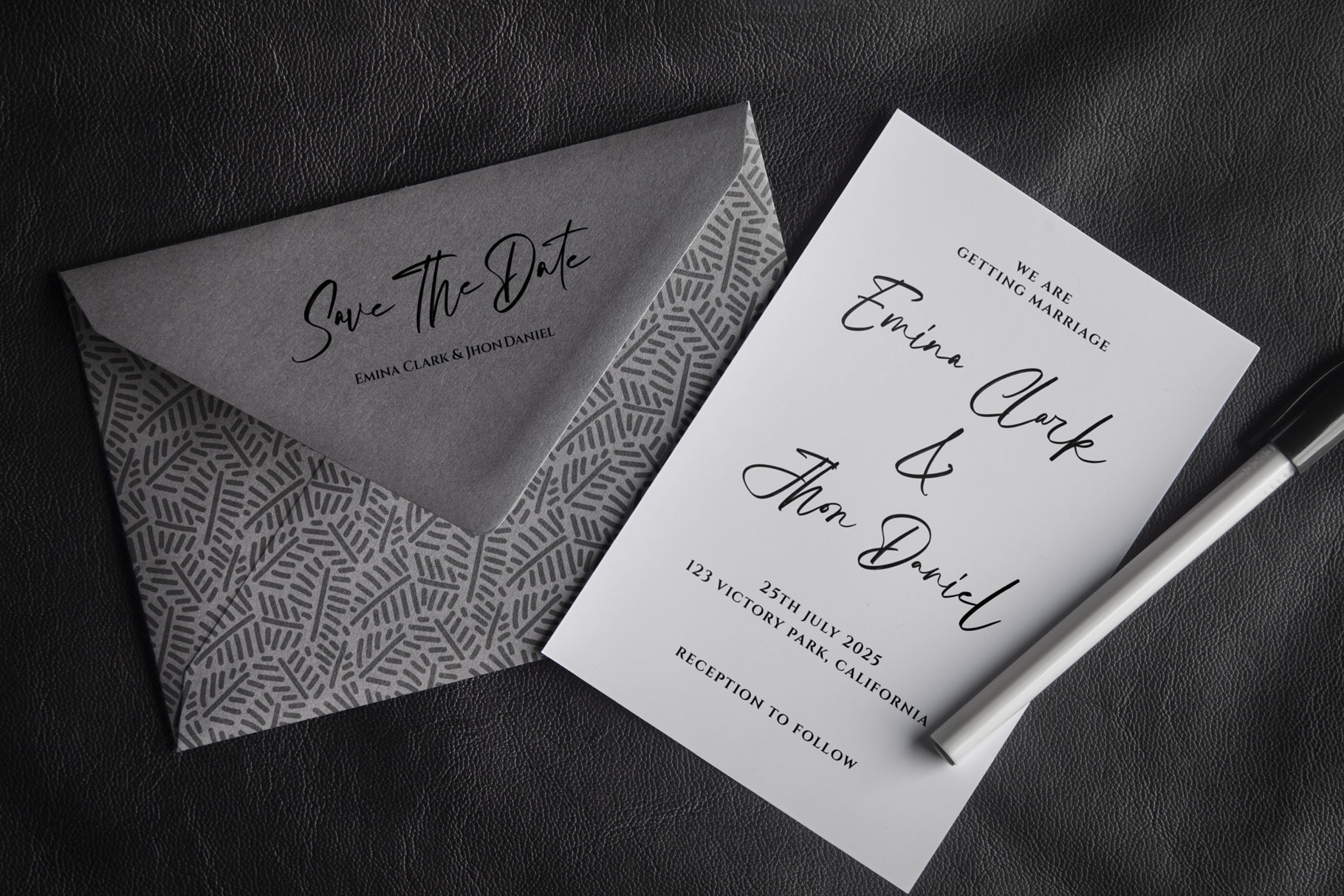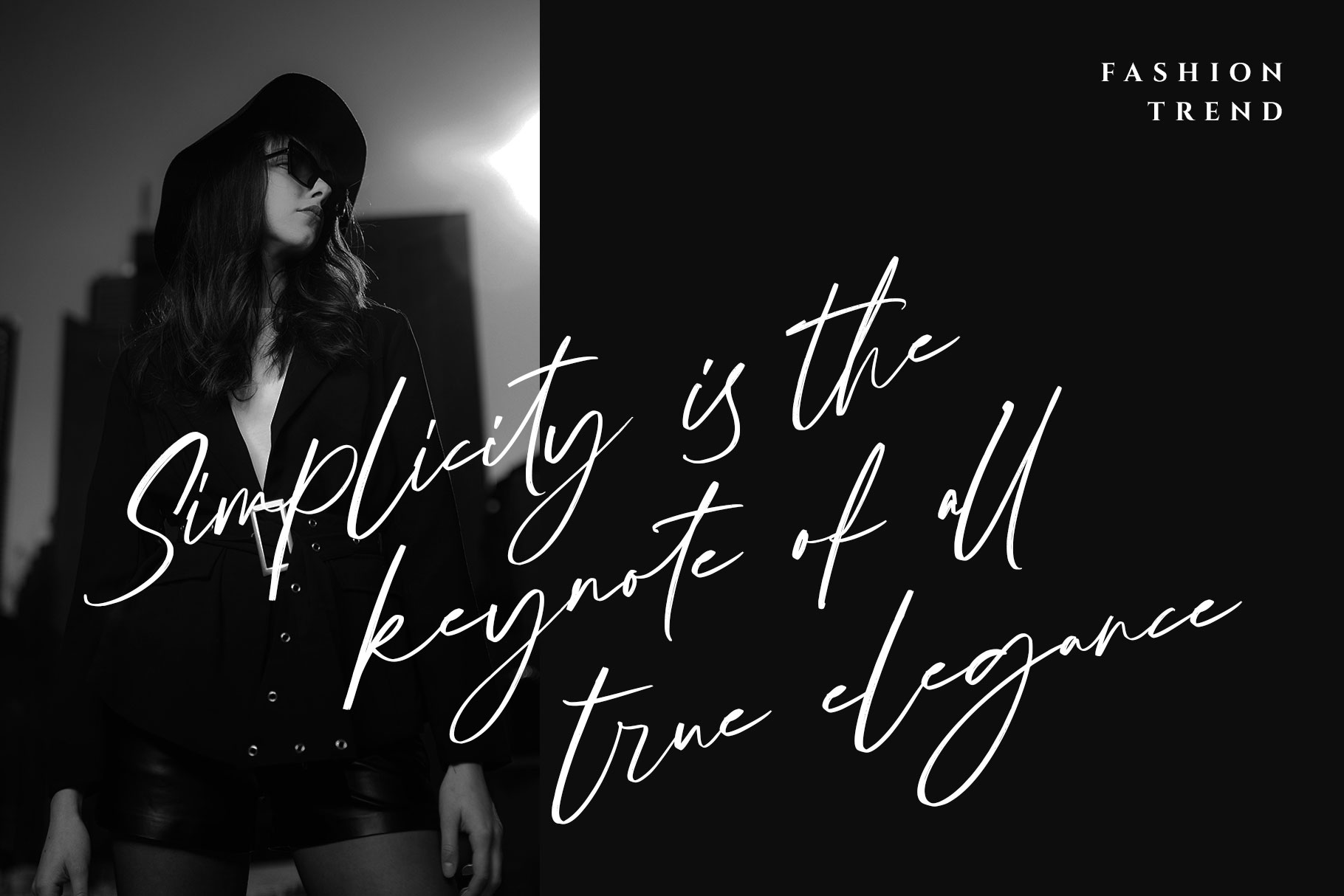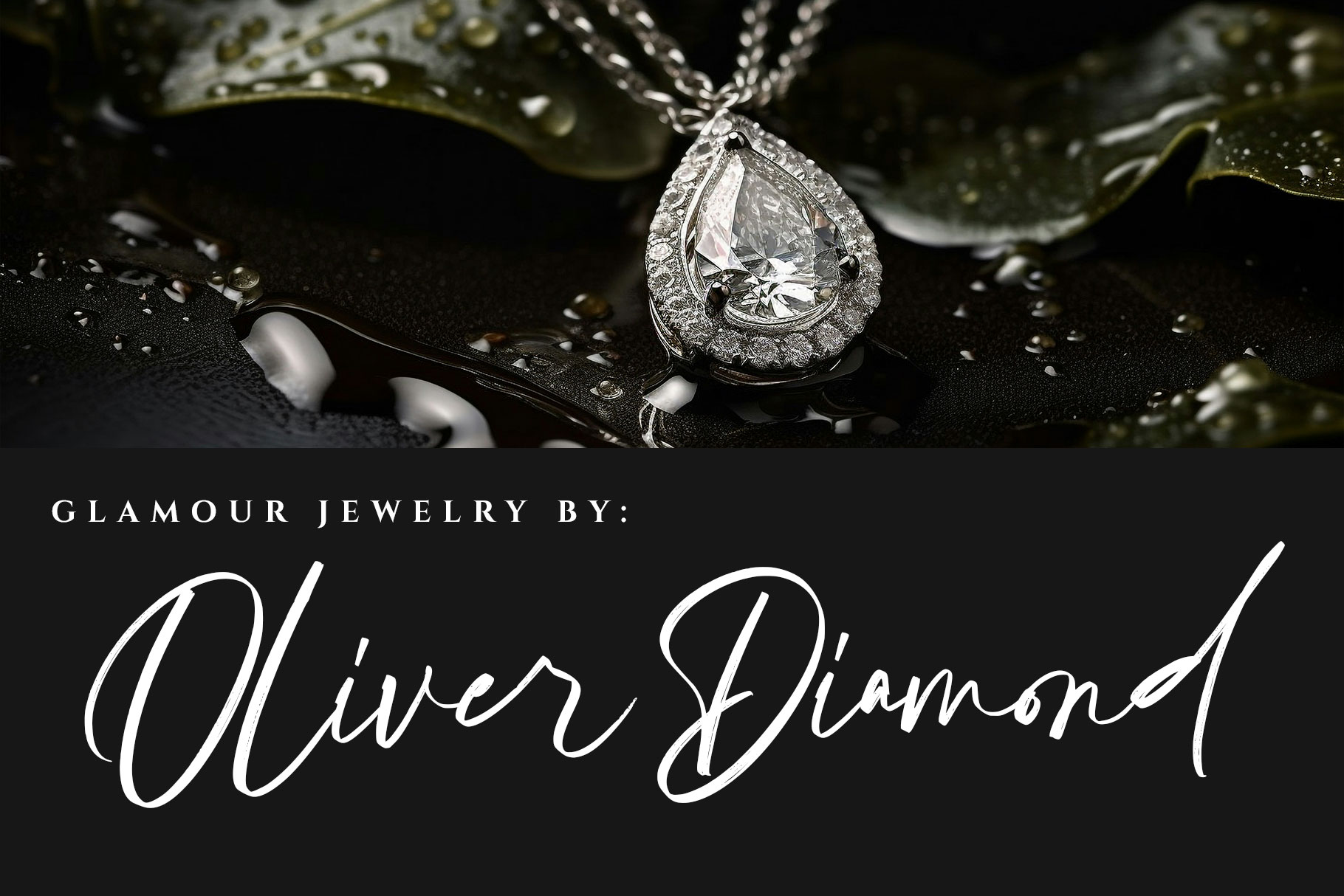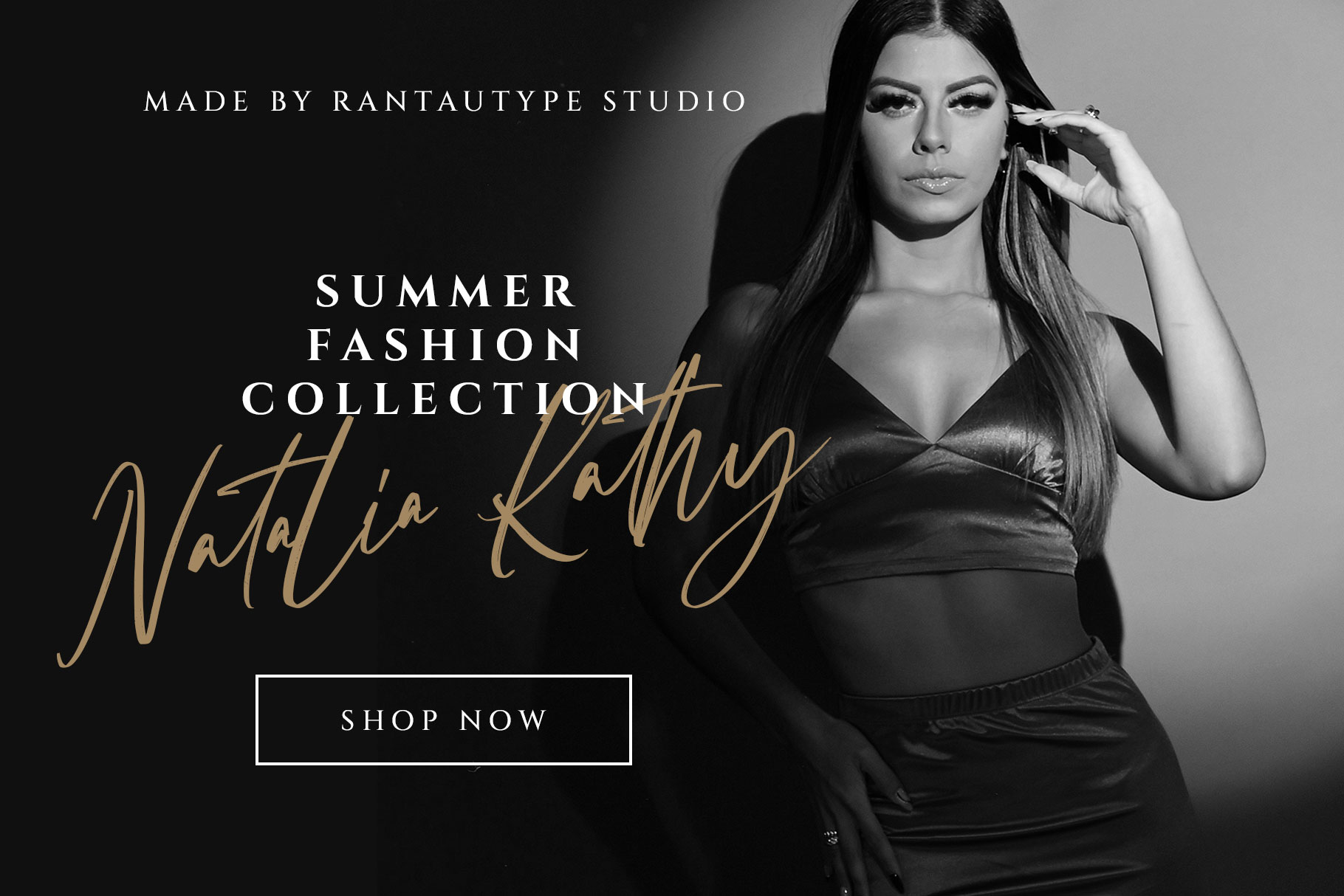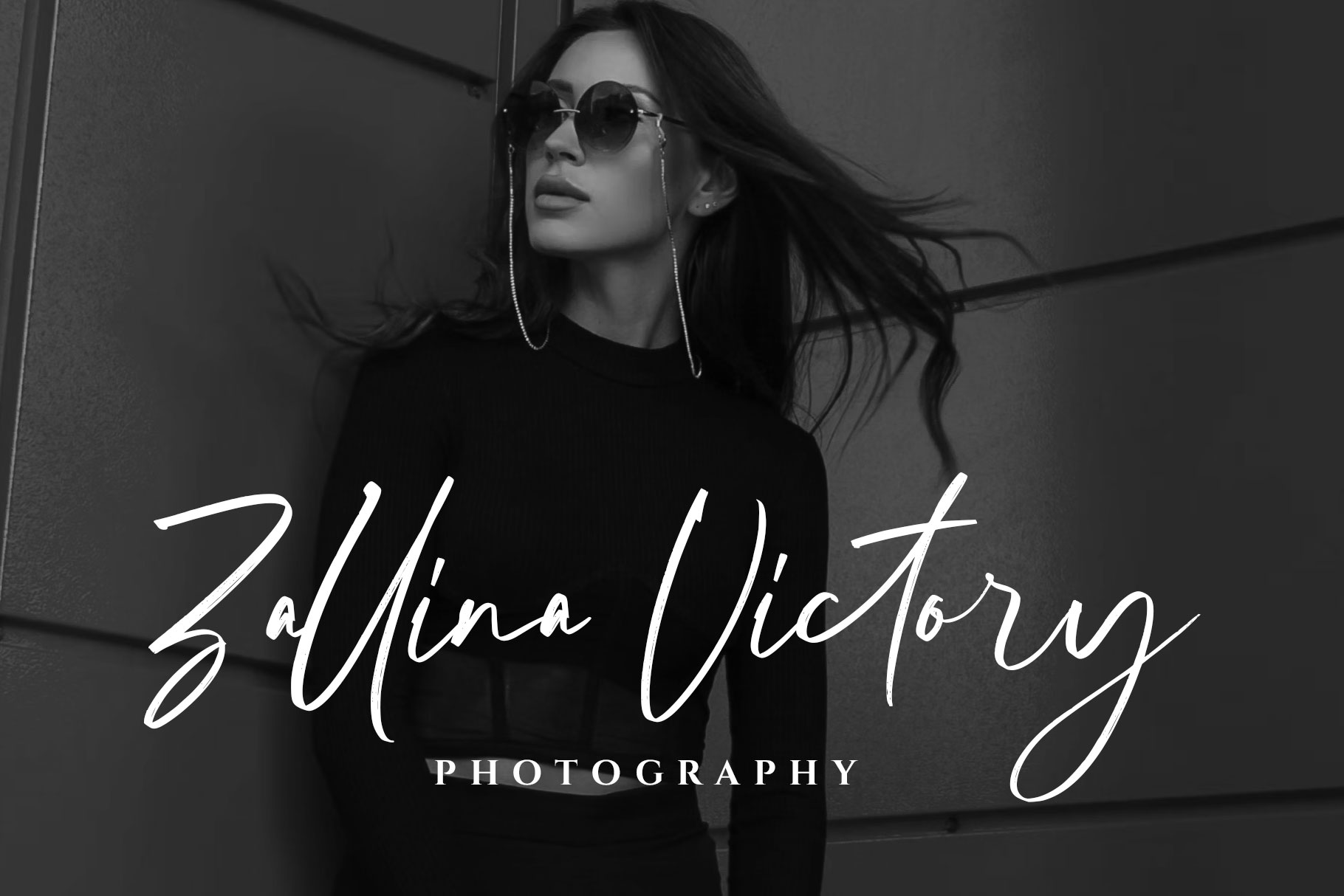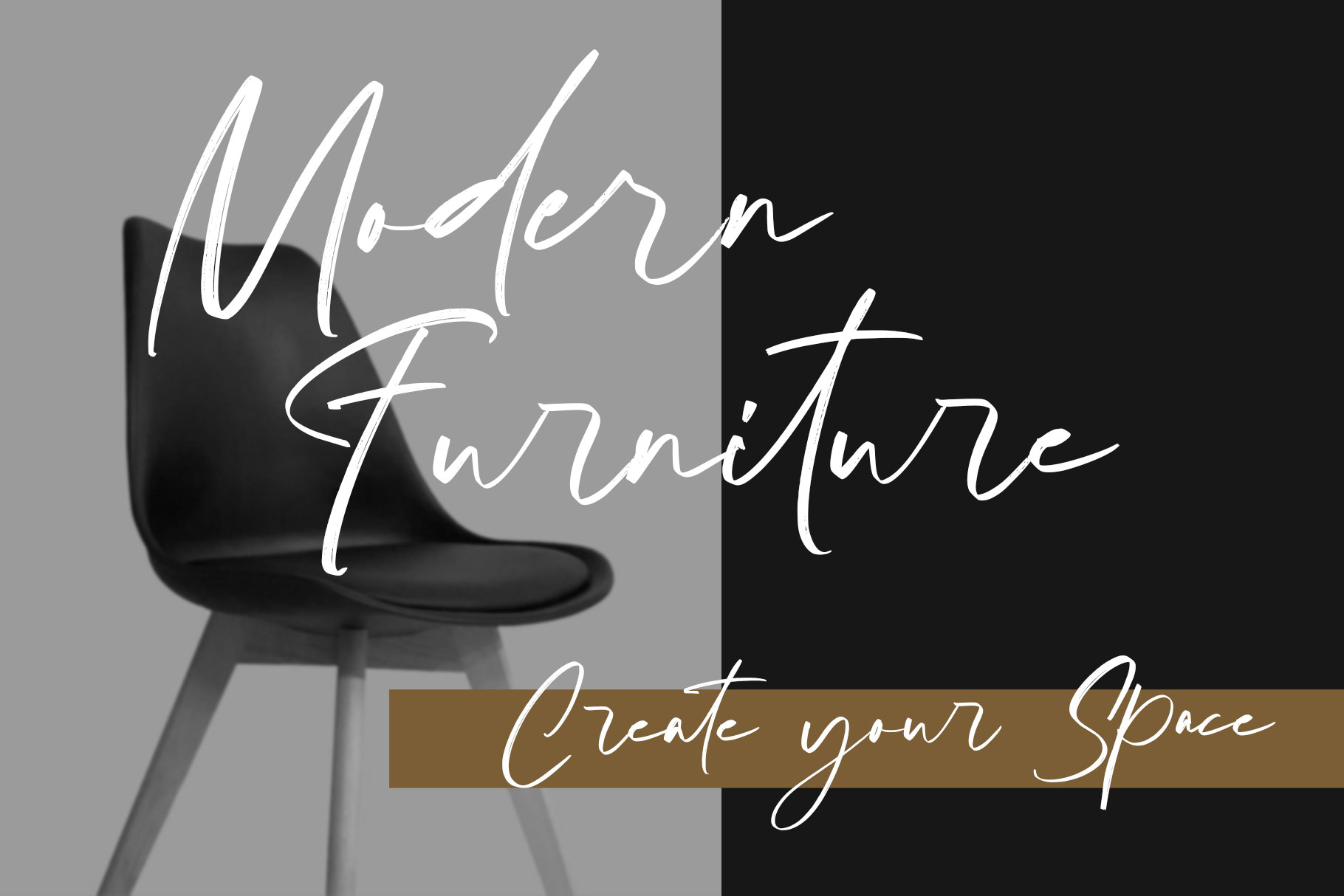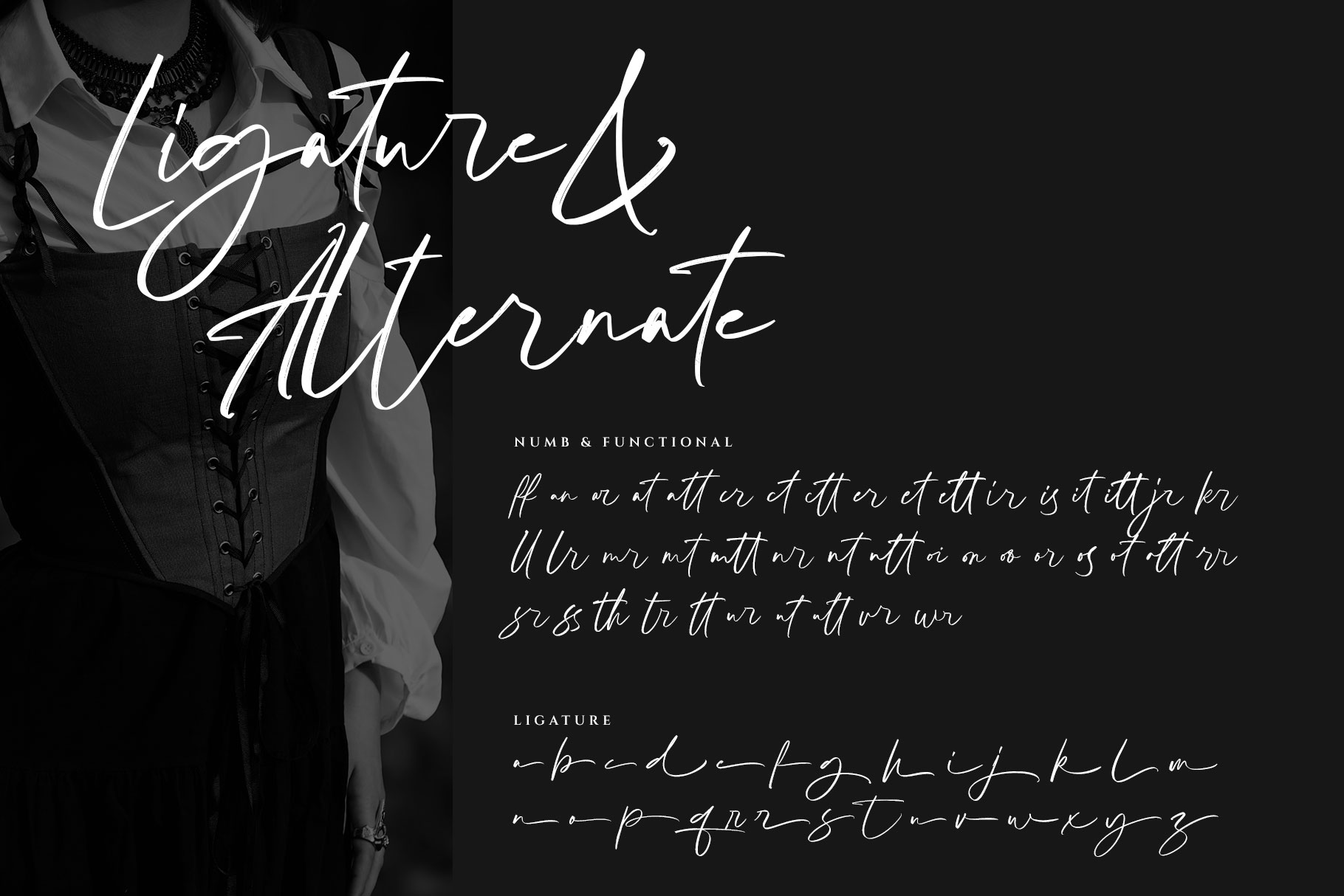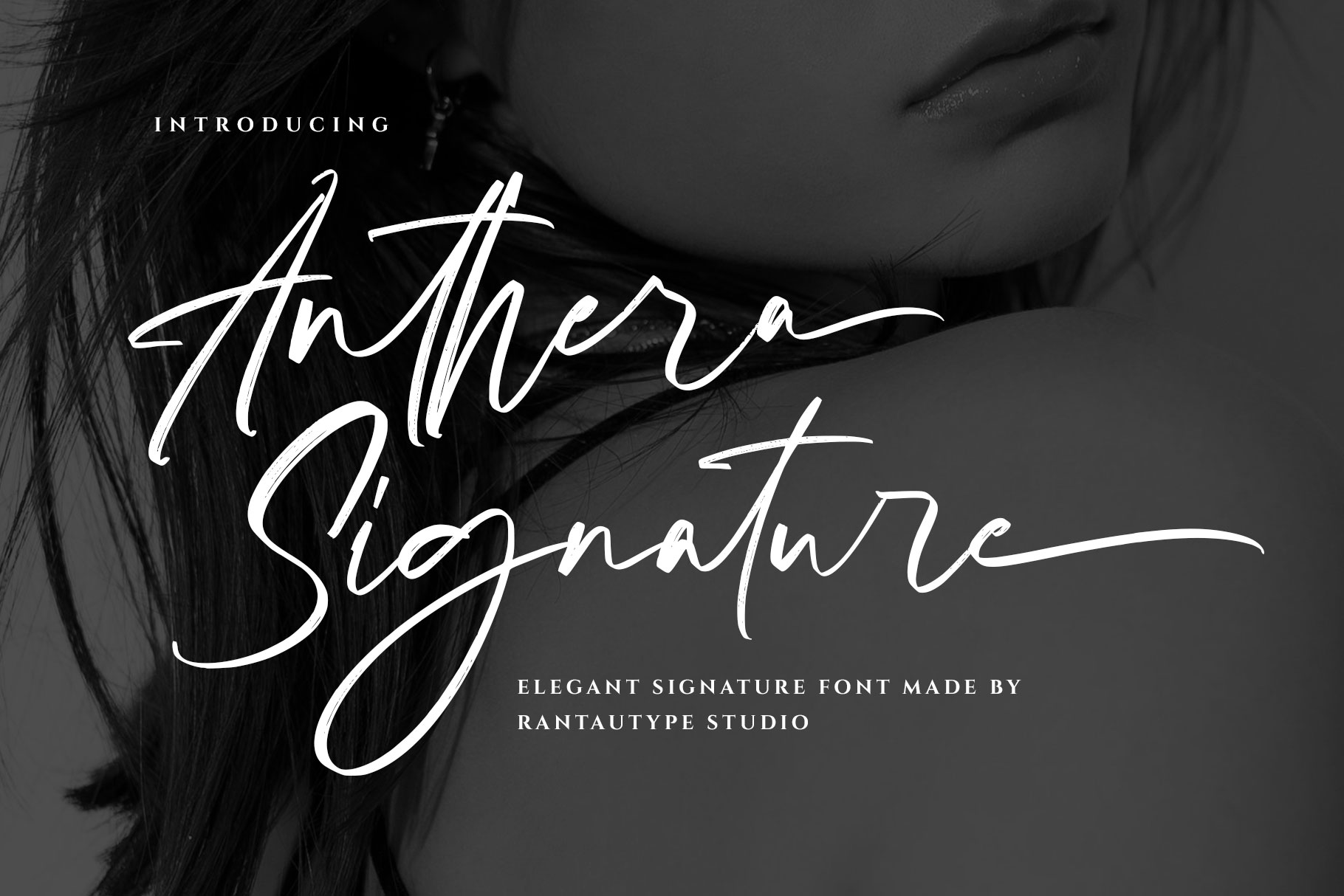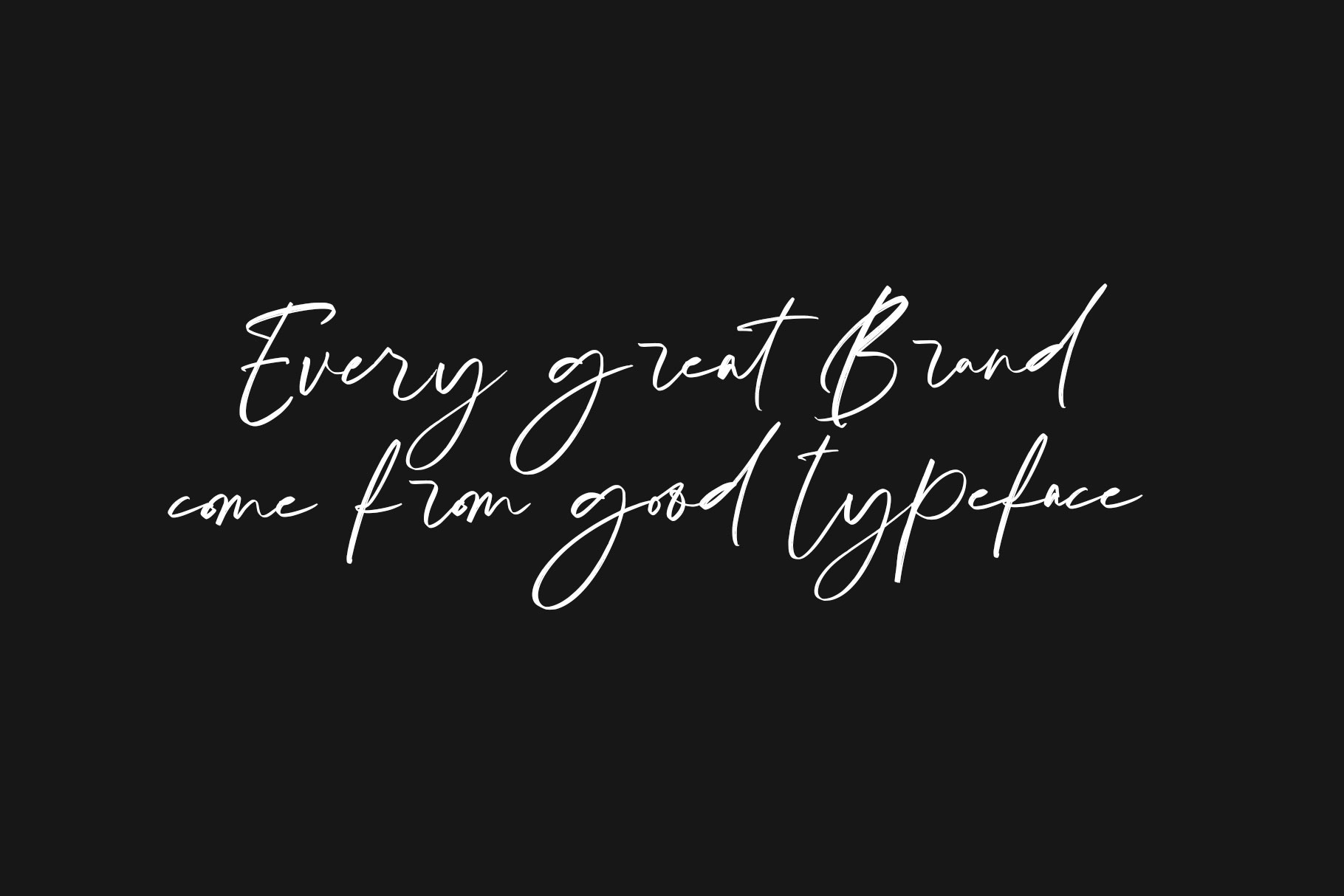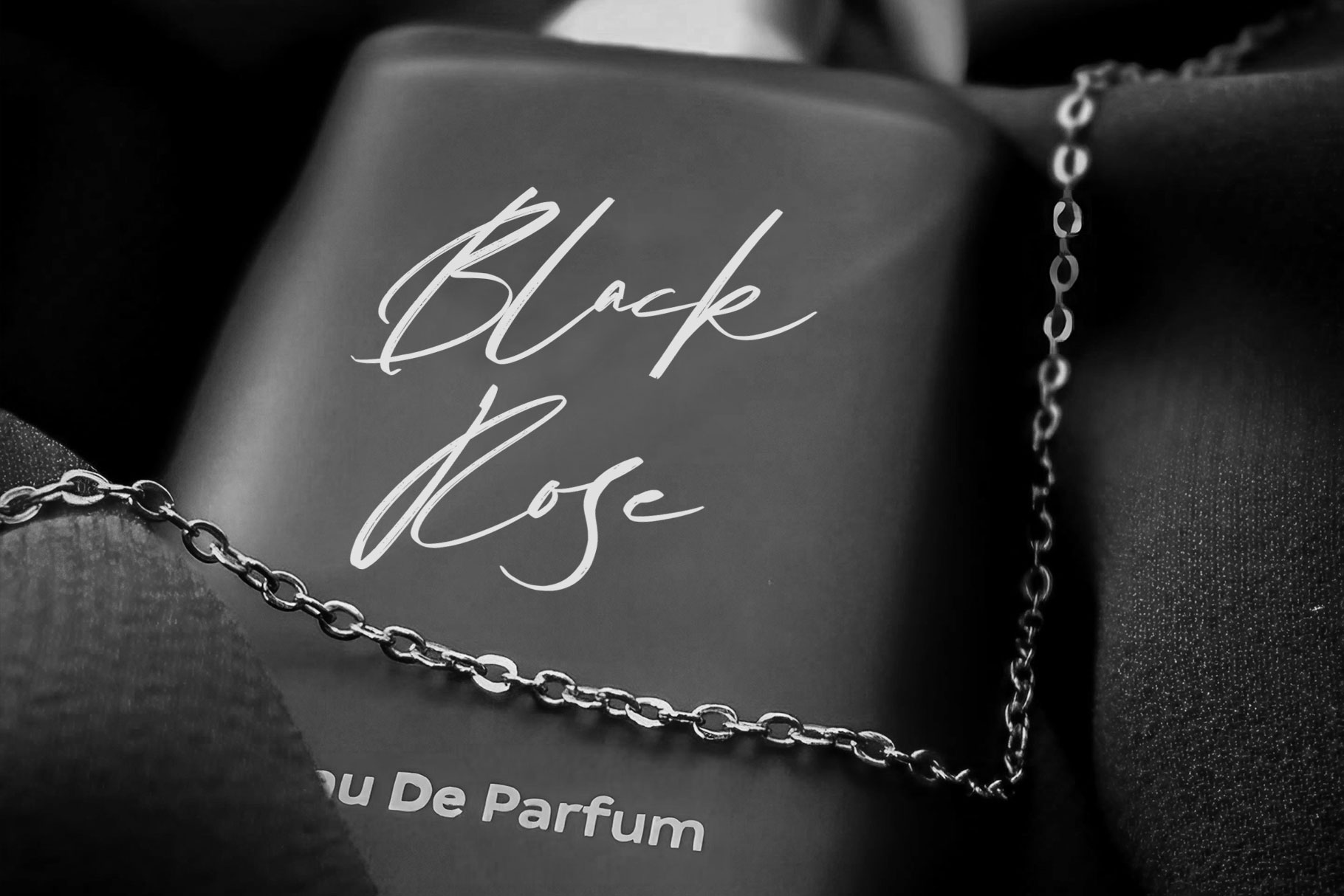
Anthera Signature Font
Anthera Signature is professional typeface emrace grace and stylish character. Anthera Signature is a perfectly choice for any creative endeavor, creating, modern, chic, lifestyle design such as logotype, title, cover, branding, invitations, wedding designs, display and magazine, social media posts, advertisements, printed quotes, product packaging, corporate brand, product designs, labels, photography, watermarks, special events and any other project with elegant touch.